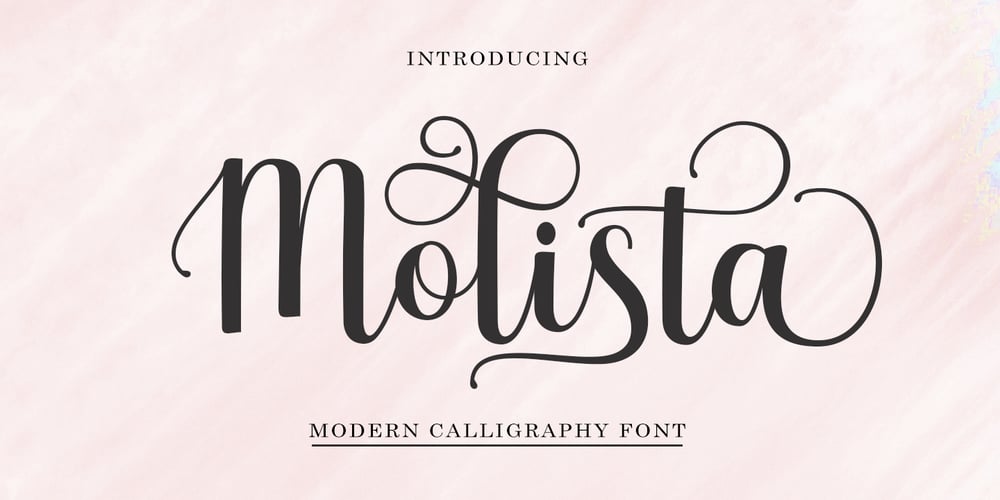
Molista Script Font Family was designed by Rizki Andika and published by Letterfreshstudio. Molista Script contains 1 styles and family package options. Hello everyone, I would like to introduce my newest font Molista Script is a beautiful modern calligraphy typeface, I hope you will be interested in this font, if you want to use it for your work.This font can be used easily and simply because there are many features in it. contains a complete set of lowercase and uppercase letters, assorted punctuation, numbers, and multilingual support. font also contains multipleligatures and many contain alternative Style Stylistic Sets such as a heart swash alternative.You can see an example in the image above.Molista Script is very suitable for market designs being developed today, this font has a stylish, trendy, natural and soft font, with this font you can take advantage of opportunities every moment is a great way to highlight the celebrationof the best of the party, because this font will be an advocate for the purposessuch as wedding invitations, branding, parties, graduations, birthdays, gatherings, etc.Thank you,LetterFresh